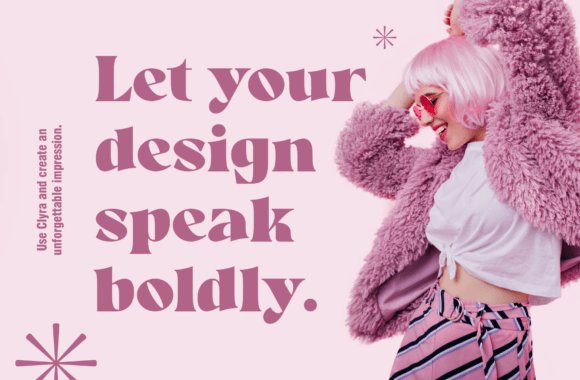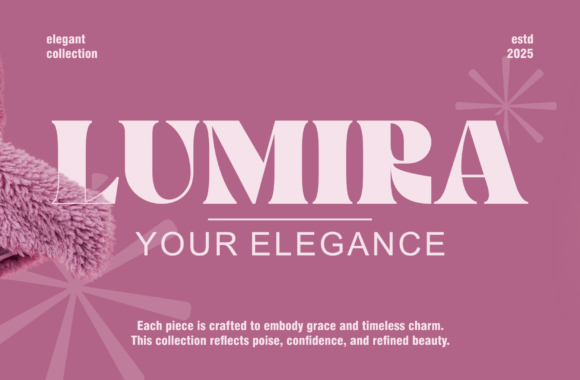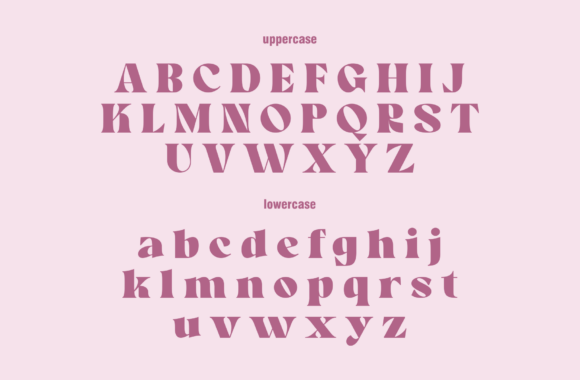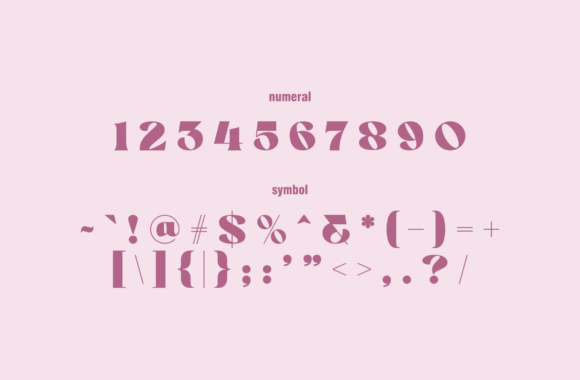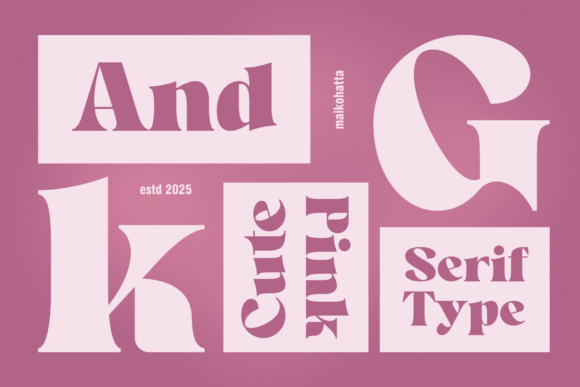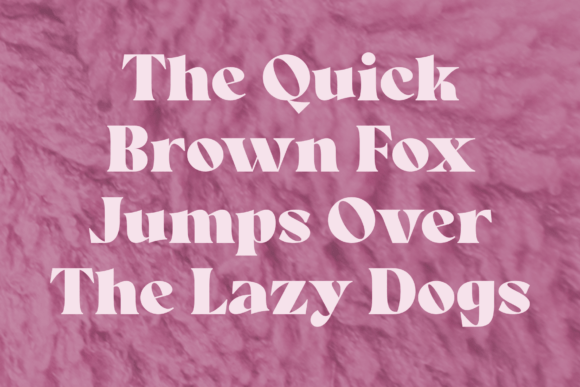
Introduction to Clyra Font
Introducing our new product **Clyra** – Elegant Serif Typeface Introducing Clyra, an elegant and sophisticated serif typeface crafted to bring a touch of refinement to any design.
With graceful curves, high contrast strokes, and timeless proportions, Clyra is perfect for editorial use, branding, wedding invitations, logo design, and luxury packaging This typeface blends classic serif elements with a modern flair, delivering both beauty and readability.
Key Features of Clyra Font